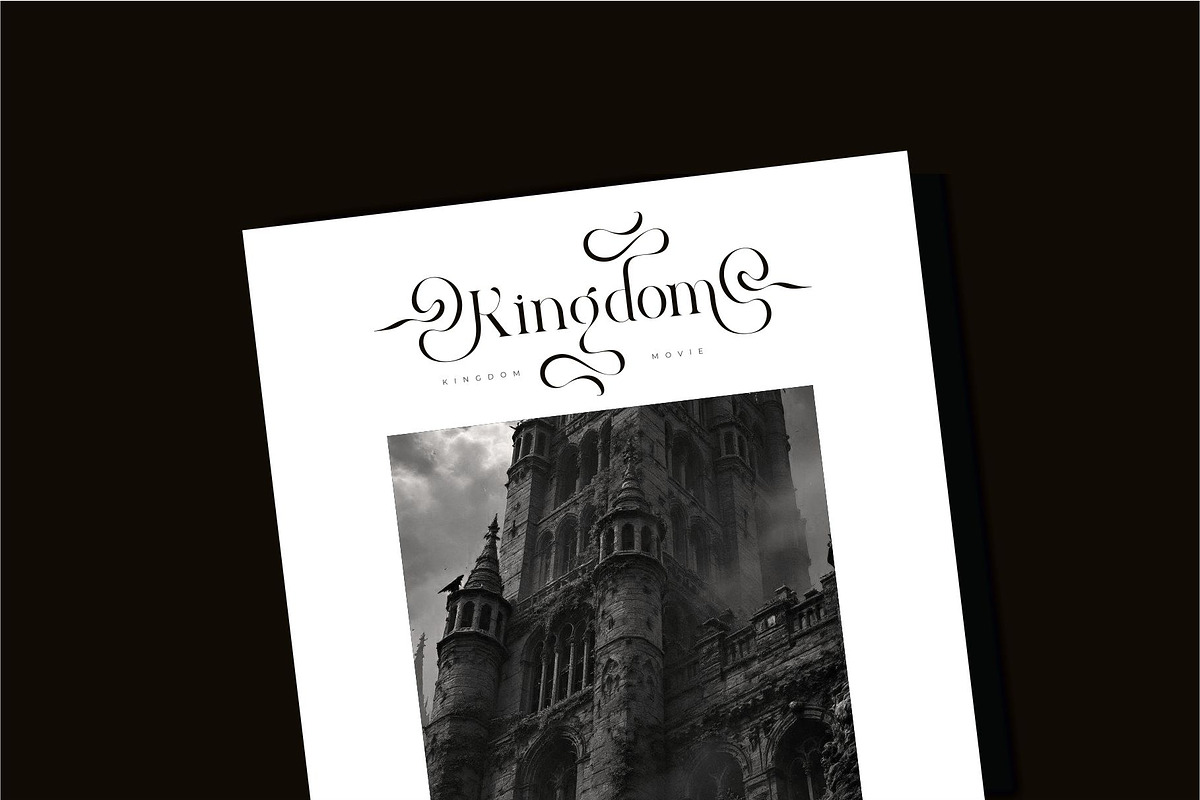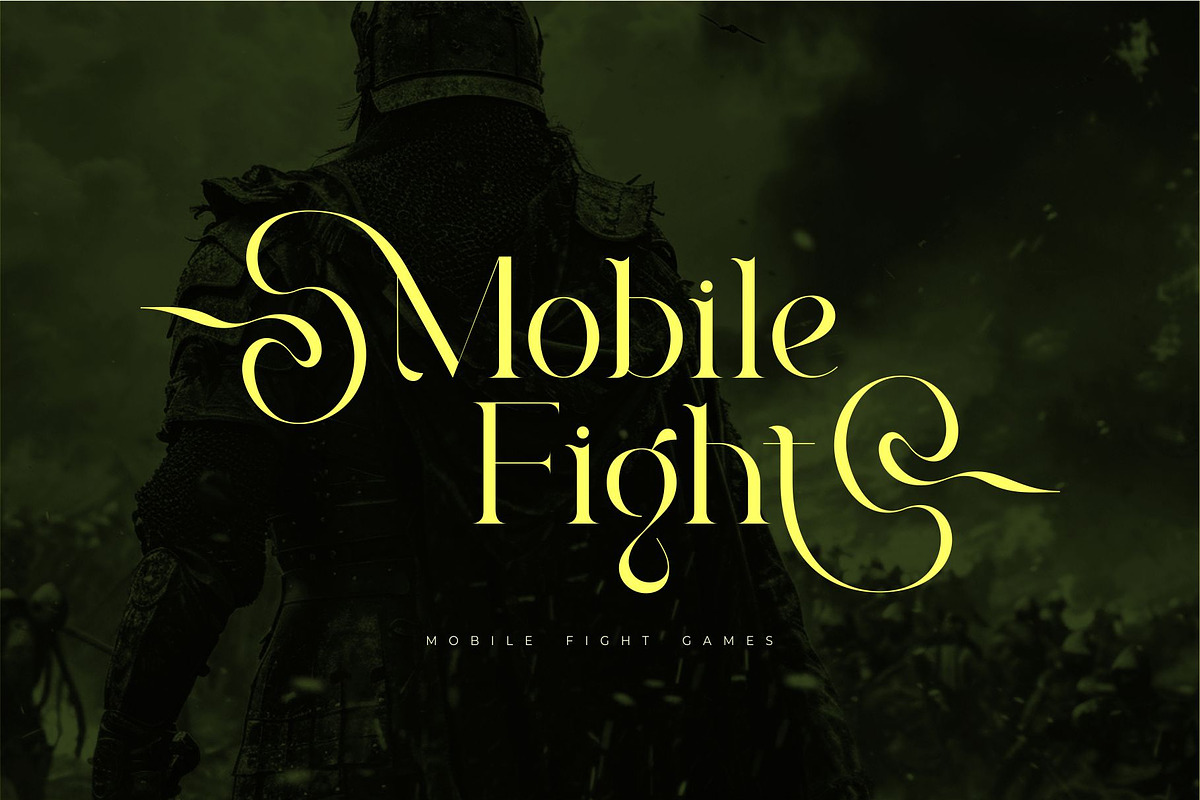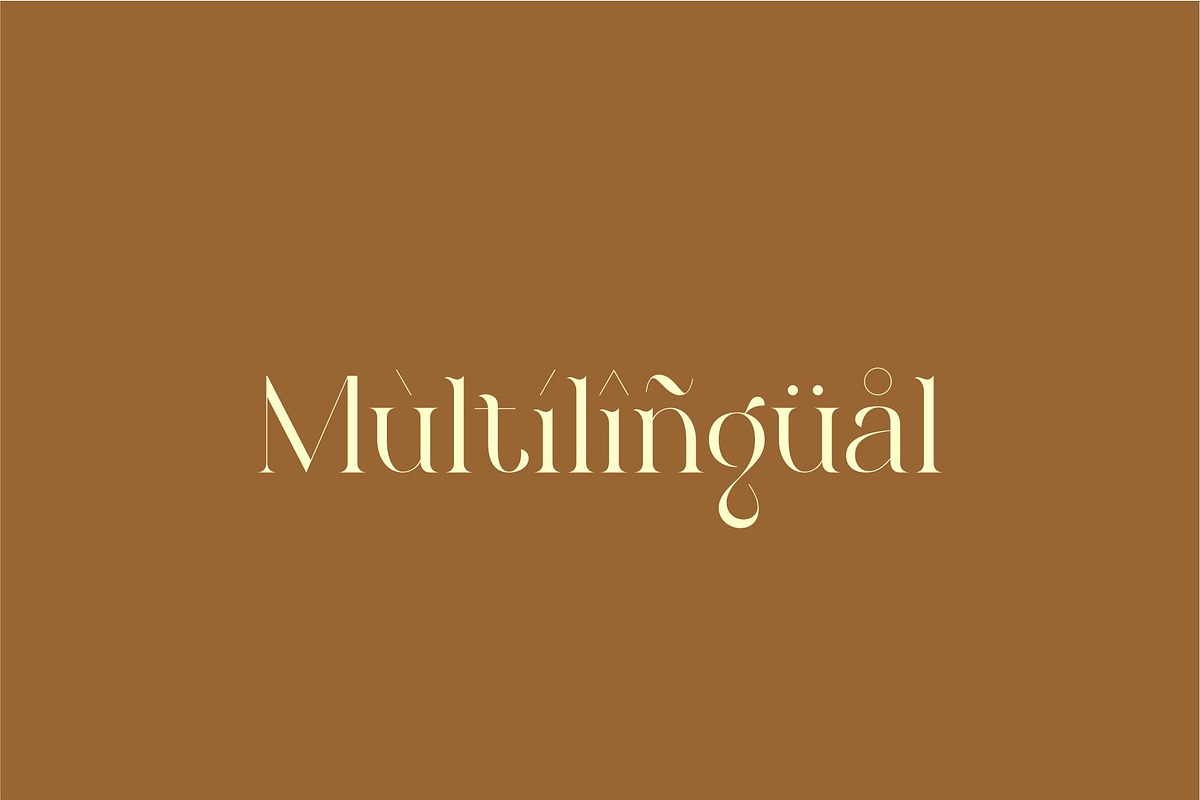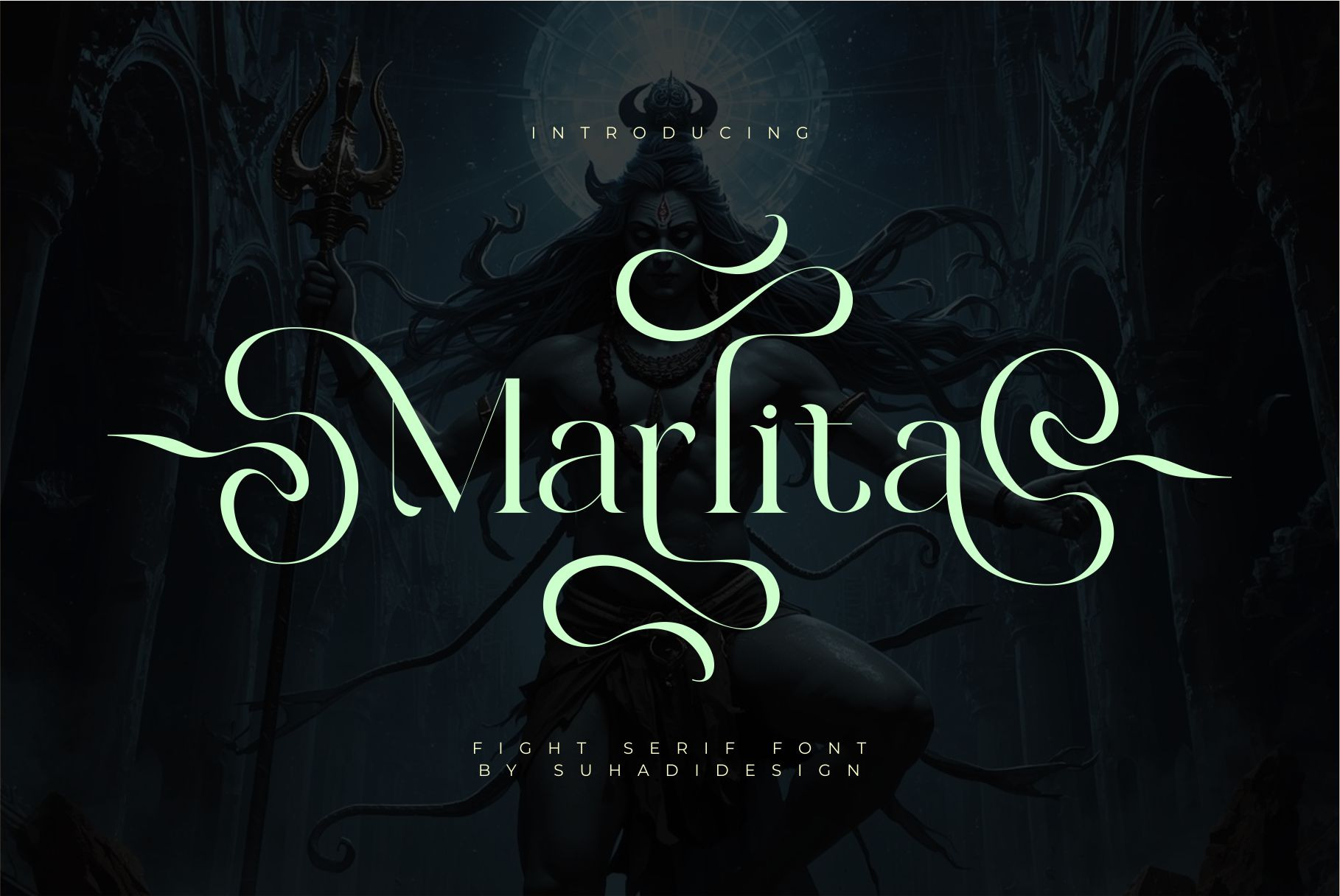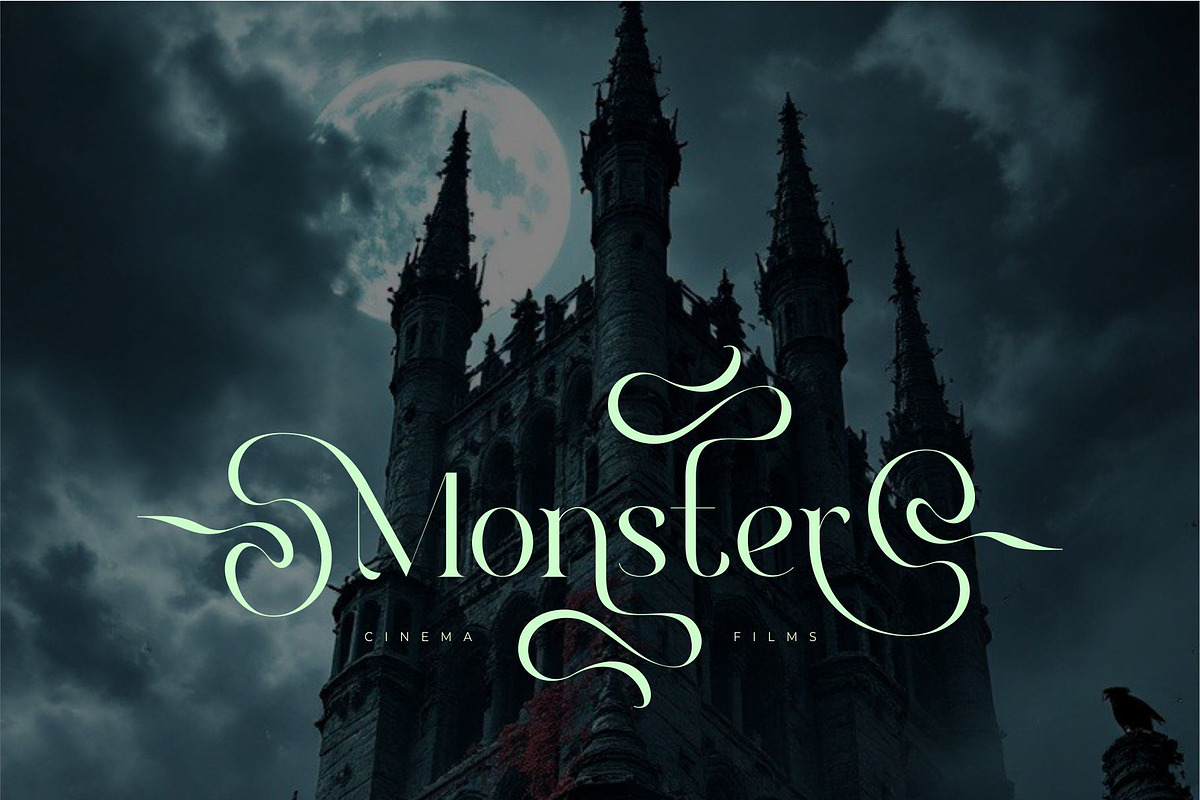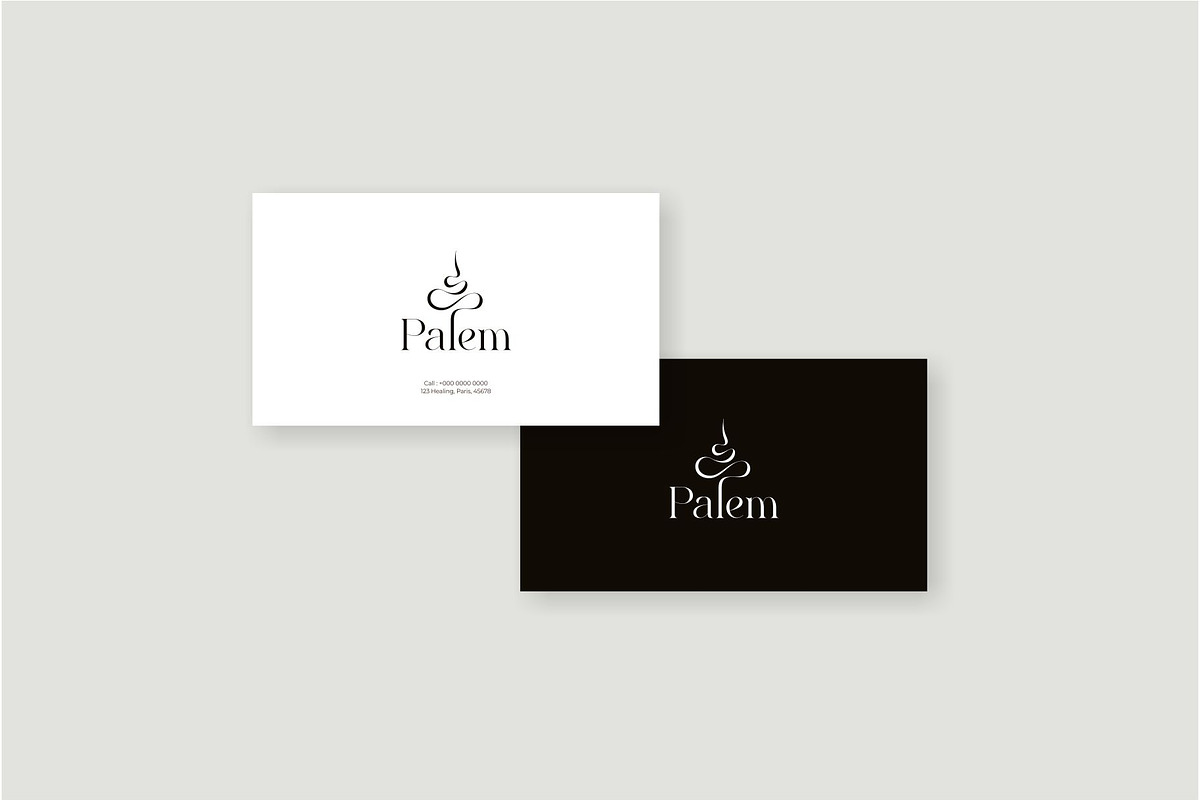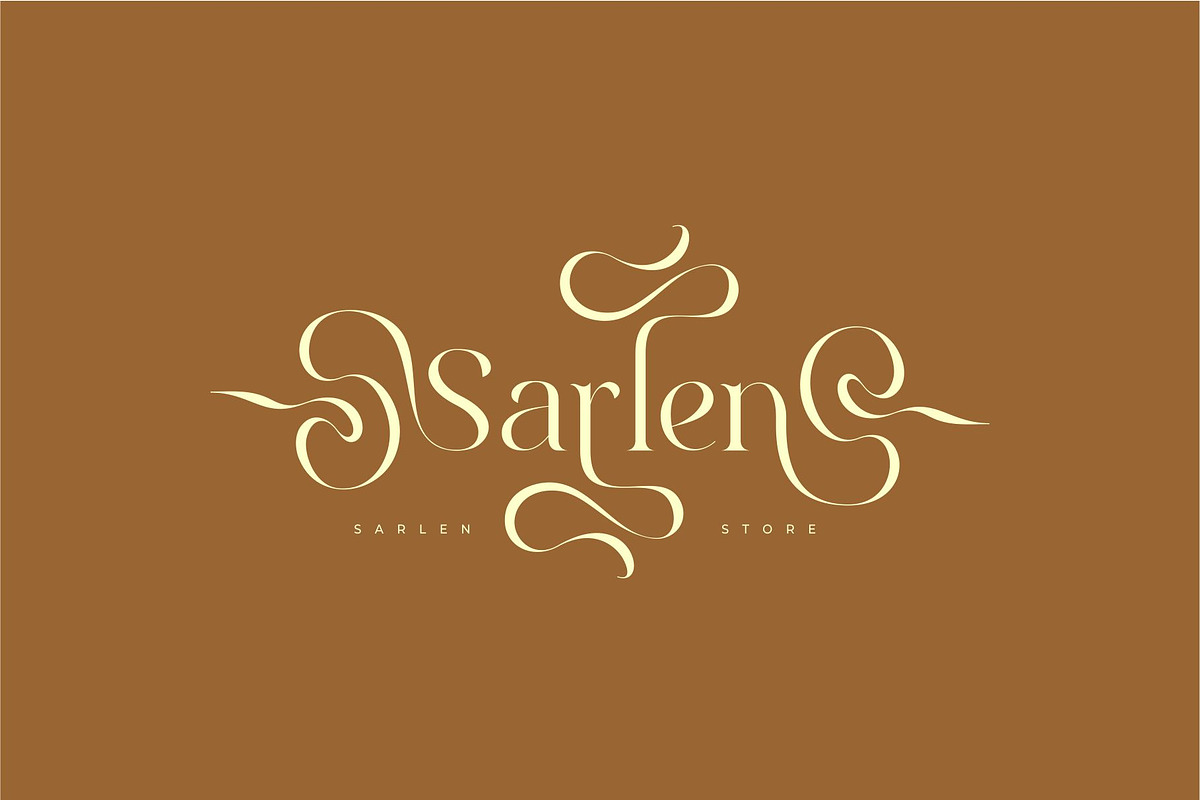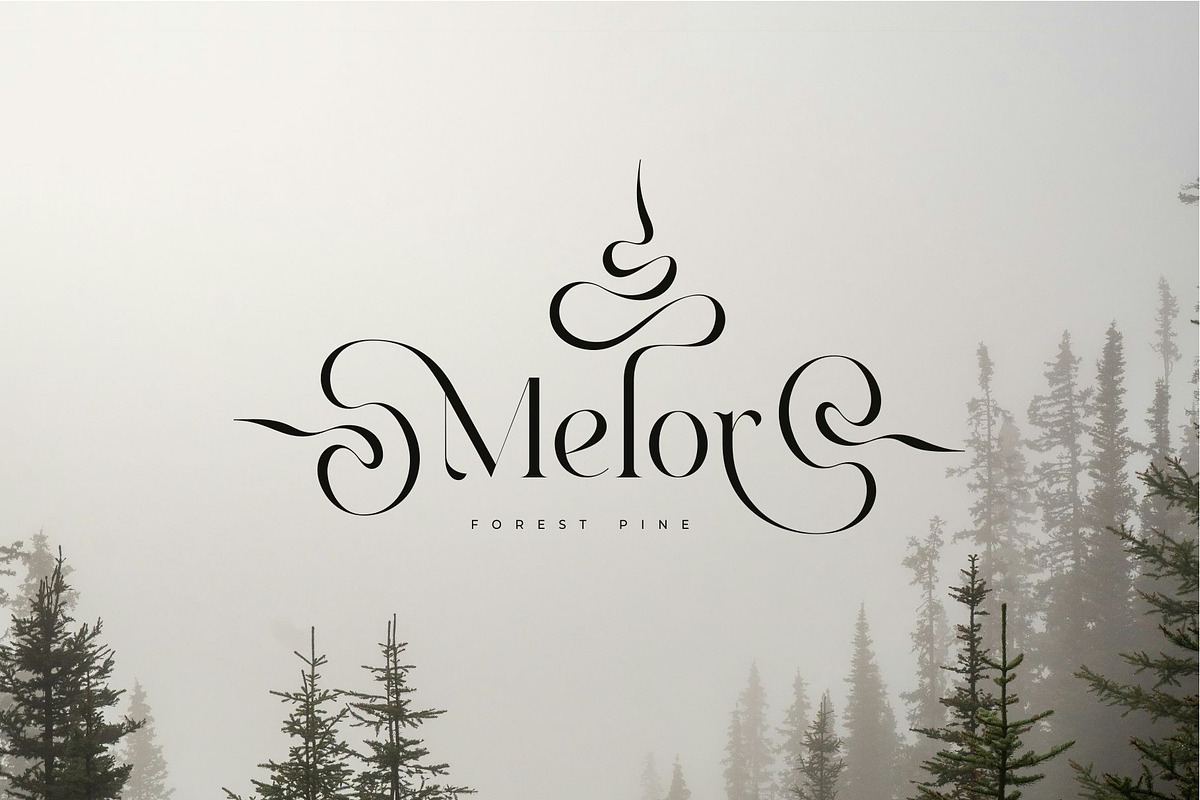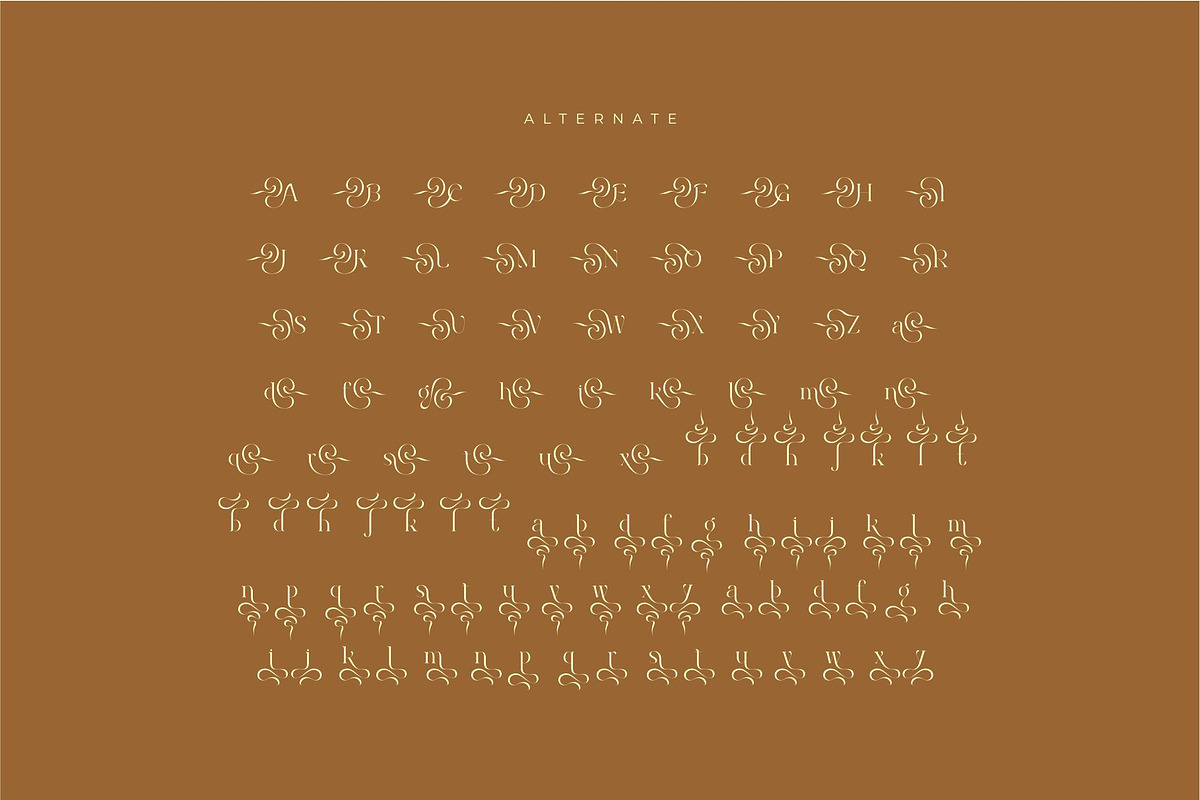
Marlita - Fight Serif Font
Hello, ladies and gentlemen! The latest Royal and Modern style font is here, a font much sought after by both women and men. This is the Marlita font. Marlita is a serif font with a distinctive gaming or royal feel. With its stylish modern design, this font has become a favorite on the market. We've kept this font looking elegant, classy, and stylish. Marlita is the perfect choice for movies, games, kingdoms, tourist attraction names, boutiques, magazines, designs, books, publications, branding, brand names, business cards, social media, branding, and other projects. Marlita is here to elevate the quality of your designs.